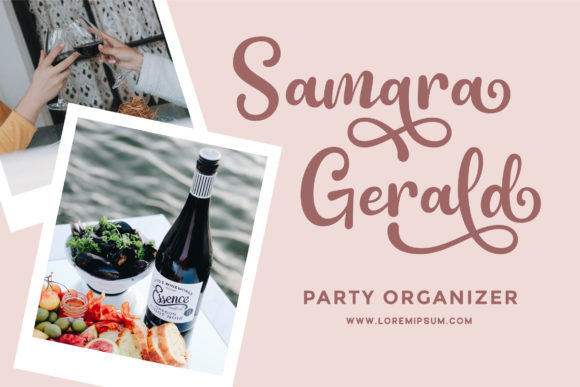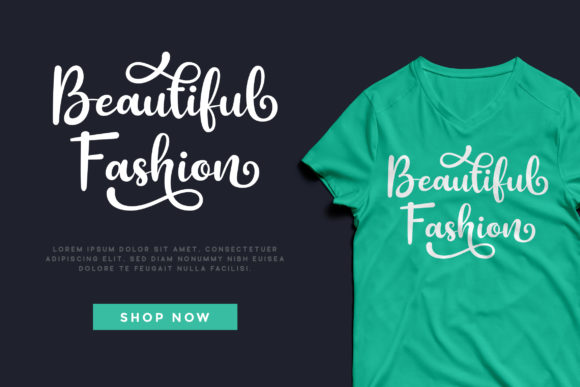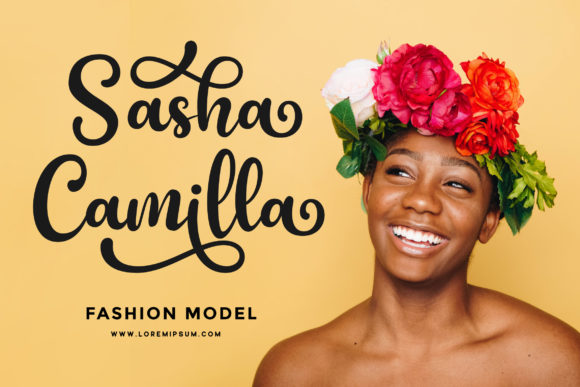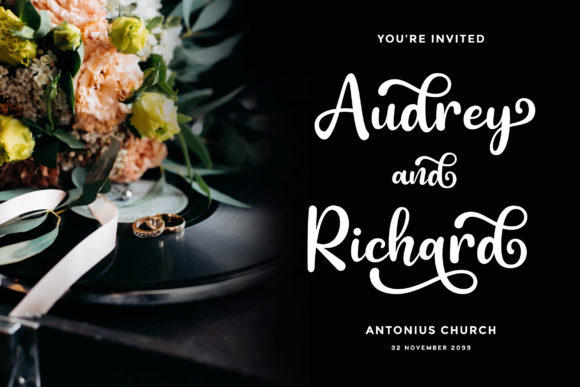
About Paula Matilda Font
Paula Matilda is a font that epitomizes elegance and flowing charm, making it a perfect choice for your design projects. Its graceful appearance adds a touch of sophistication, capturing hearts with its timeless beauty.
The PUA encoding of Paula Matilda allows easy access to all of its glyphs and swashes, empowering you to explore a wide range of creative possibilities. Unlock its vast potential, and let your imagination run wild as you craft unique and captivating compositions.
With its varying baseline, Paula Matilda adds a sense of dynamics to your typography, making your designs visually engaging and alluring.
The font’s smooth lines create a mesmerizing visual experience, giving your projects a touch of artistry that captivates the eye.
Paula Matilda maintains its classy calligraphic influences while embracing a contemporary and fresh feel. This versatility allows it to harmonize with various design themes, making it a valuable asset for your creative toolkit.
Incorporate Paula Matilda into your projects, and watch as it elevates them to the highest levels of elegance and allure. Whether it’s crafting wedding invitations, logos, branding materials, or any other design endeavor, this font adds a touch of grace and sophistication that resonates with authenticity.
As you fall in love with Paula Matilda, you’ll discover how it brings a sense of timelessness to your creations. Its elegant and flowing handwritten style transcends trends, ensuring that your designs remain relevant and captivating for years to come.
In summary, Paula Matilda is more than just a font; it’s an embodiment of elegance and charm. Embrace its beauty and let it be the brush that paints your creative visions, bringing your projects to the highest levels of artistry and beauty. Fall in love with Paula Matilda, and watch as it leaves a lasting impact on all who encounter your stunning designs.